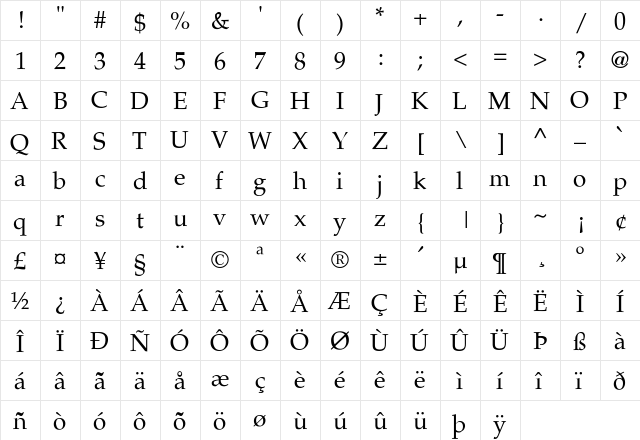
Palatino-Roman Regular
Design Context for Palatino-Roman Typeface
Palatino-Roman is a composed and adaptable typeface that performs quietly and consistently across a wide range of design contexts.